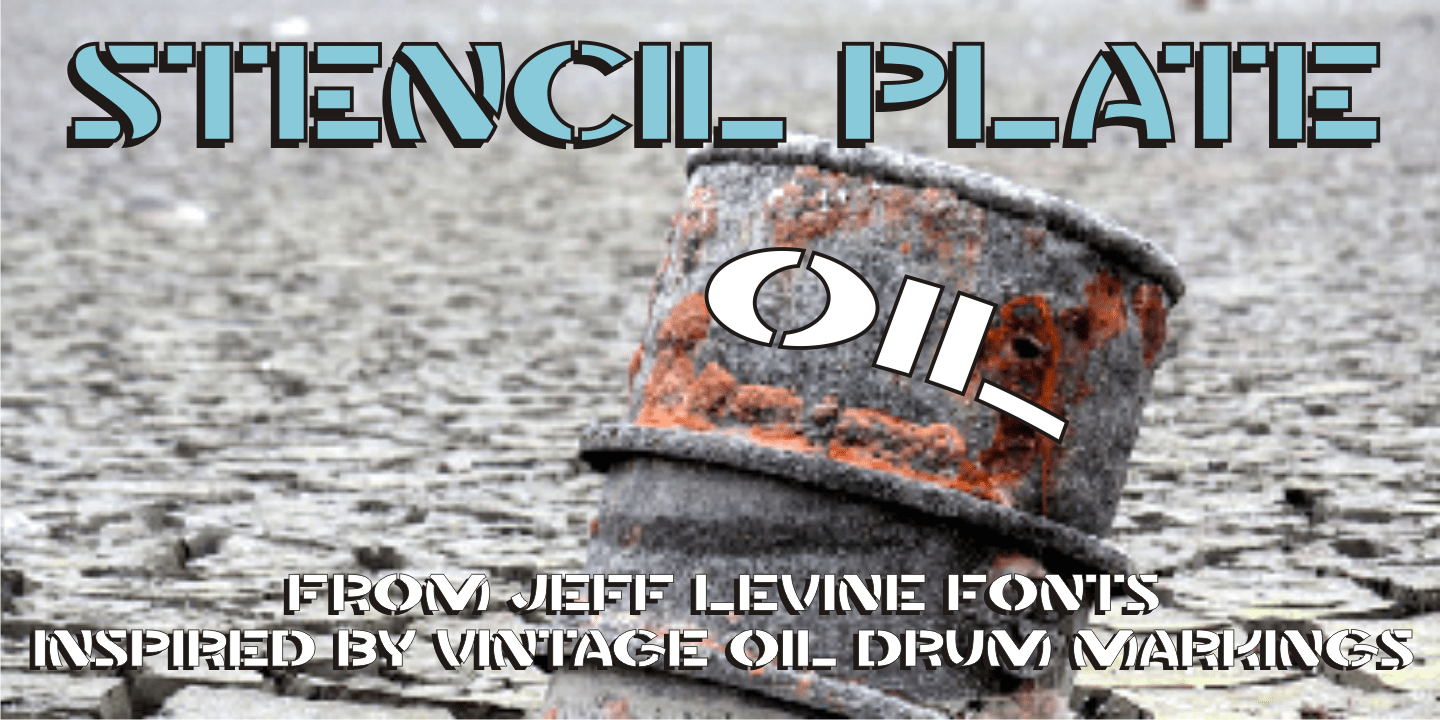
Stencil Plate
A brass stencil hand cut to mark the tops of oil drums yielded the lettering for Stencil Plate JNL. The font emulates the retro feel of the unique letter forms found in the original antique design.
Stencil Plate JNL Regular by Jeff Levine Fonts